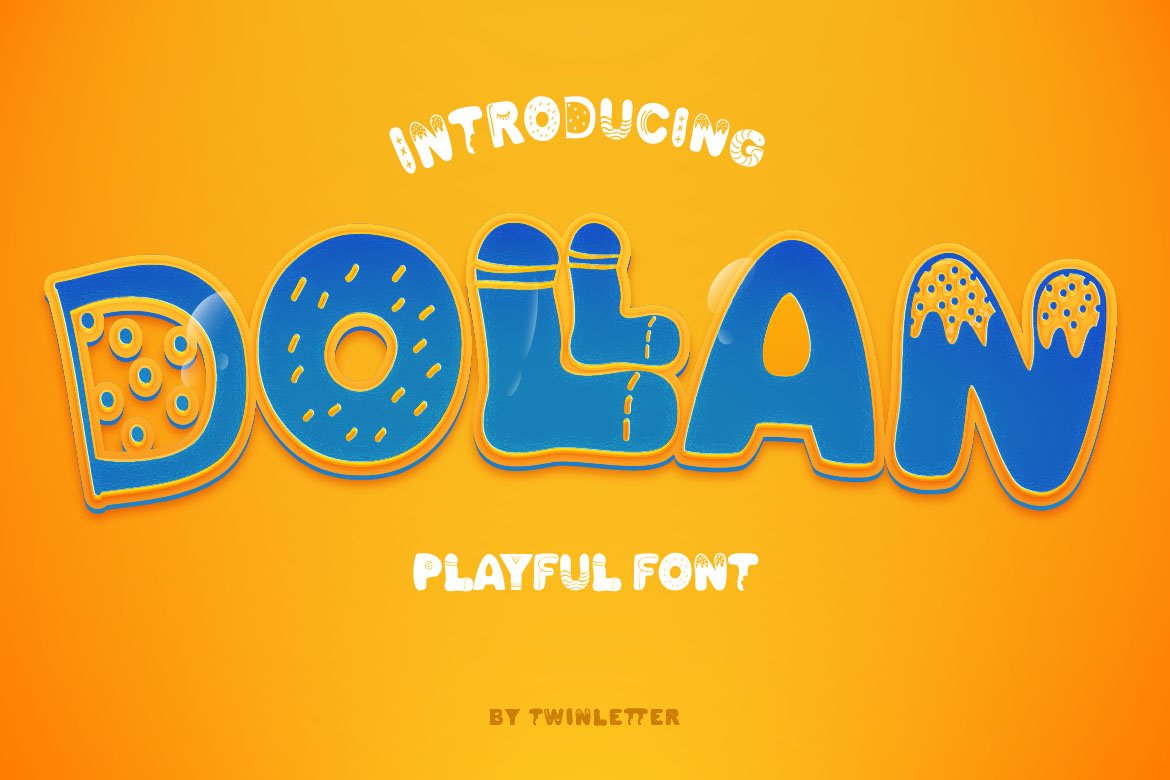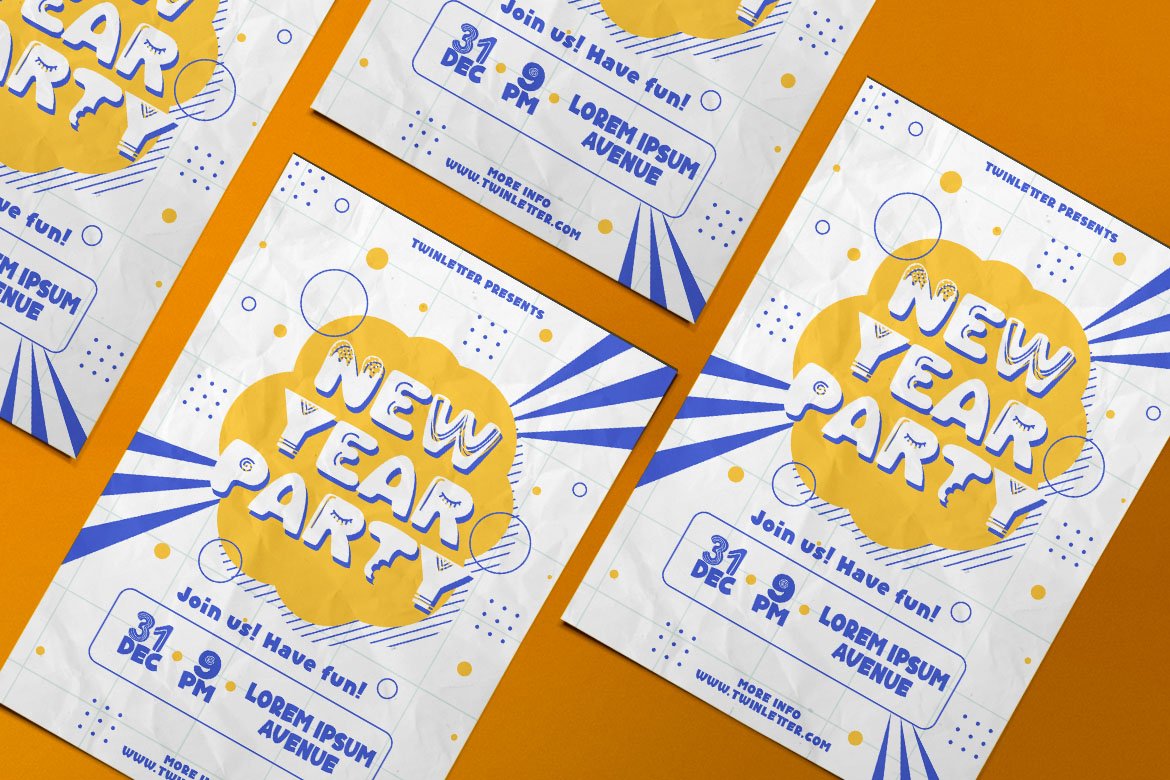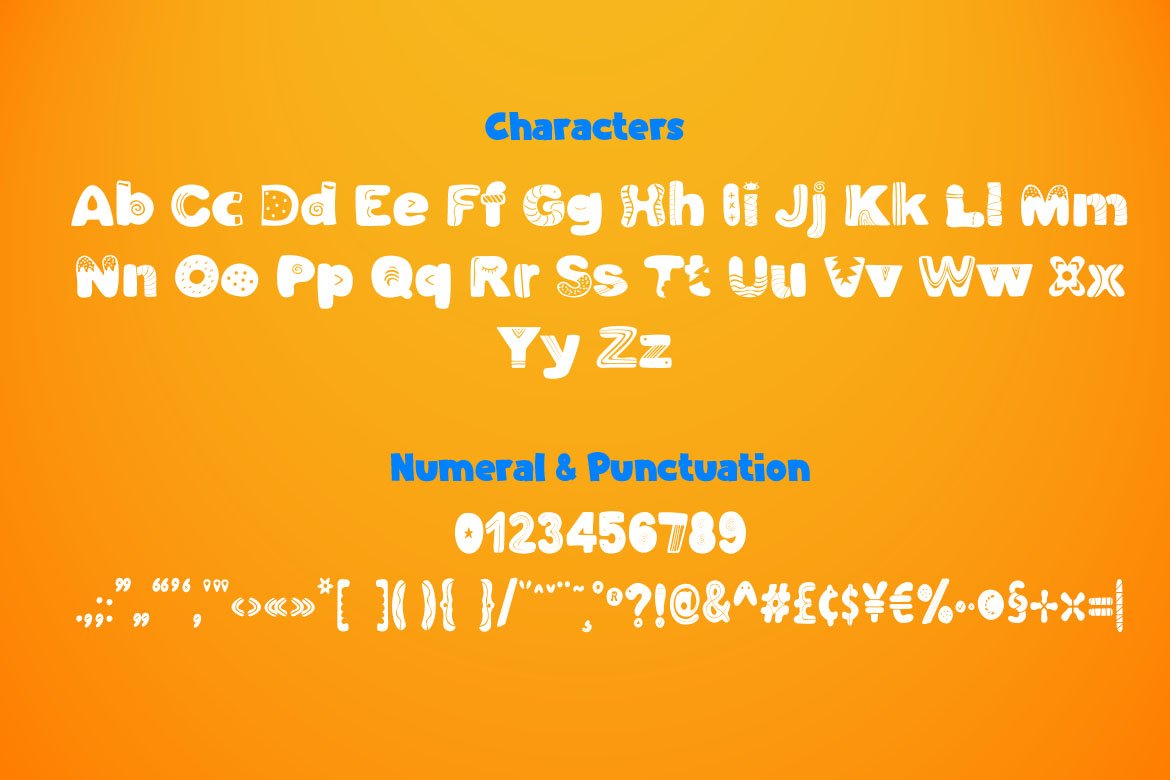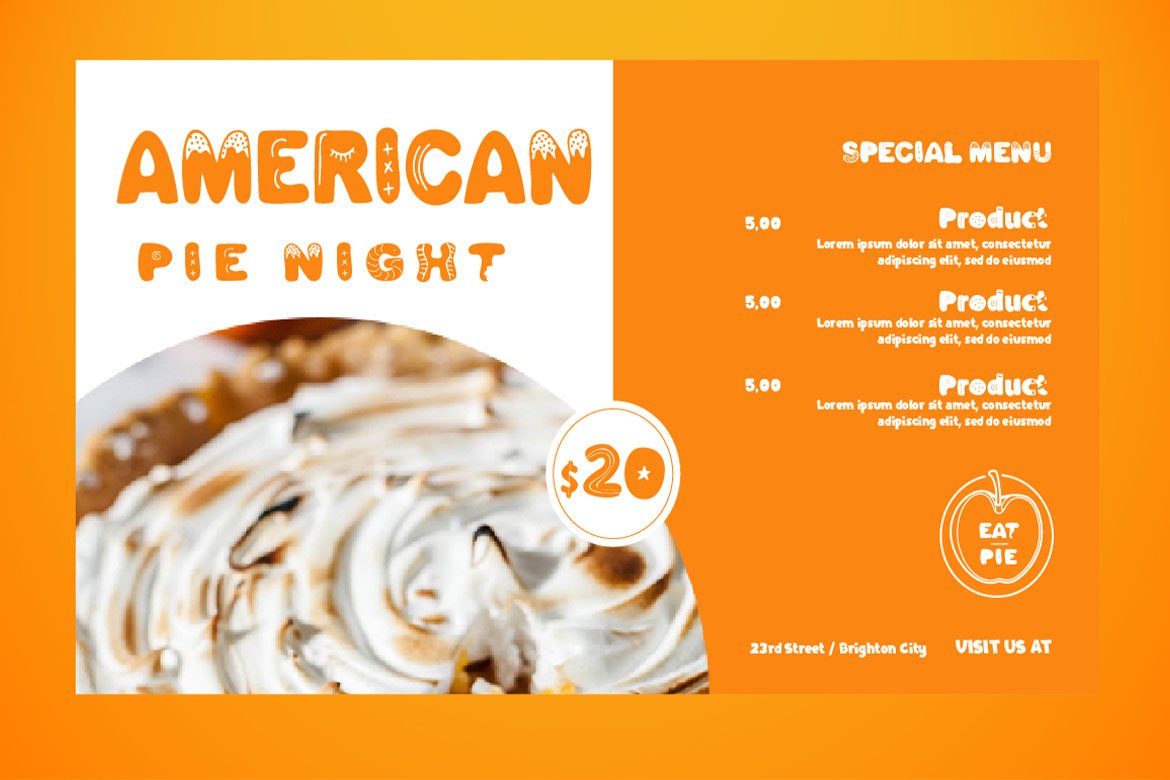
Dollan
Dollan, our newest whimsical typeface, is now available.
This font is worth implementing in your remarkable projects since it is a distinctive and eye-catching display font that is dynamically crafted to bring out the originality in each letter.
This typeface has a cheerful, unique, energetic, and unique vibe to it, and it will give your creative work a unique look as well.
This font is perfect for games, sporting events, branding, banners, posters, movie titles, book titles, quotes, logotypes, and more.
of course, your various design projects will be perfect and extraordinary if you use this font because this font is equipped with a complimentary font family, both for titles and subtitles and sentence text, start using our fonts for your amazing projects.